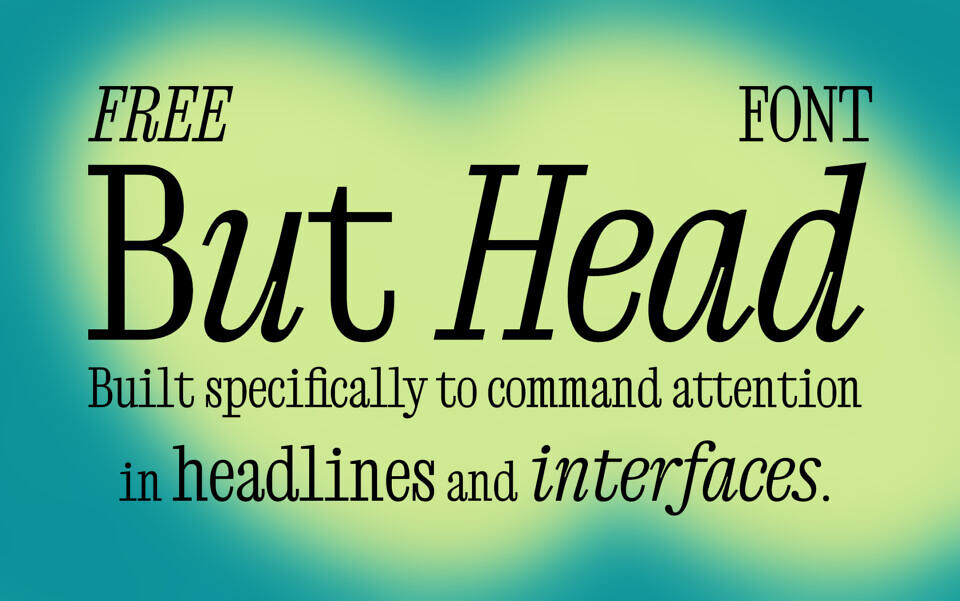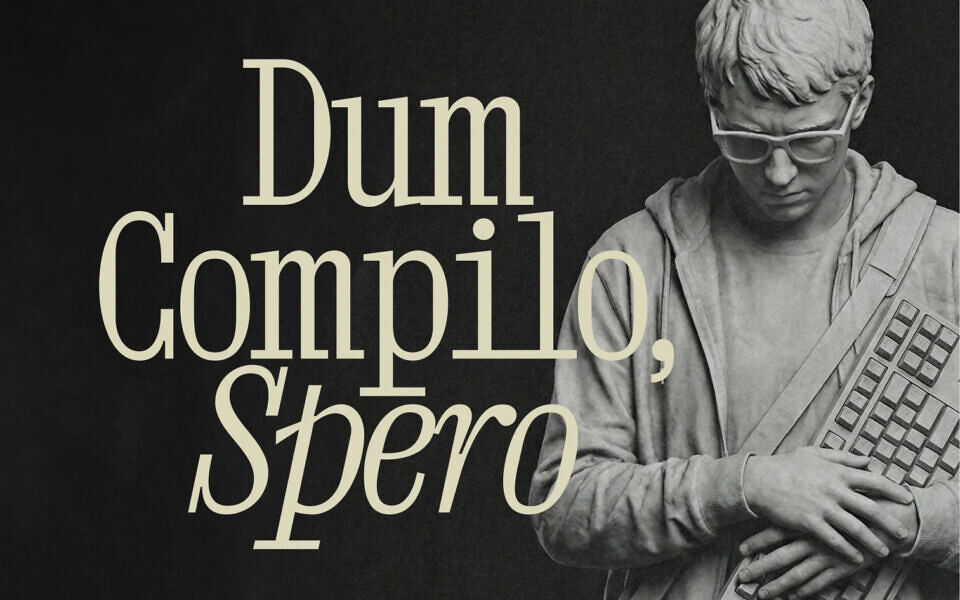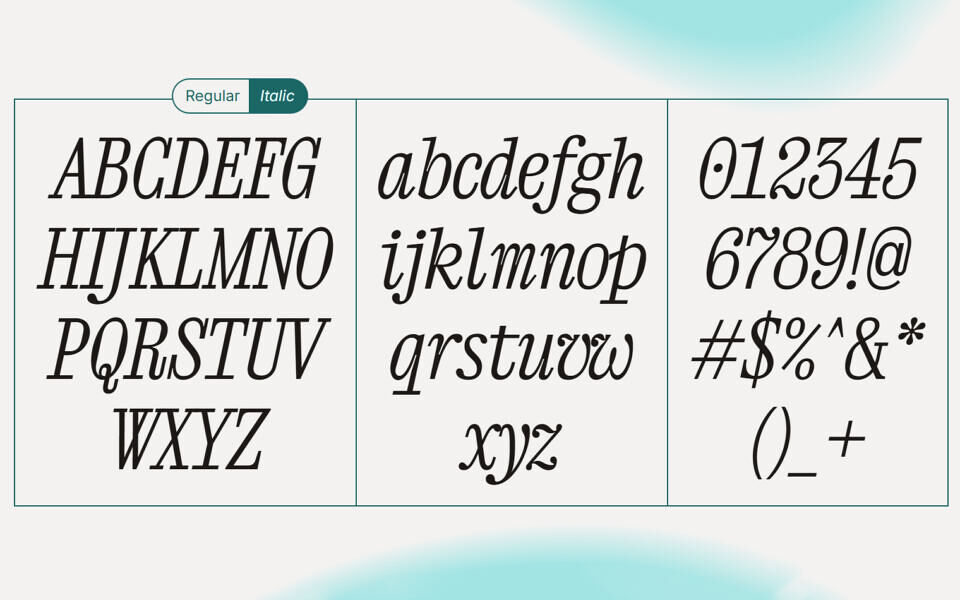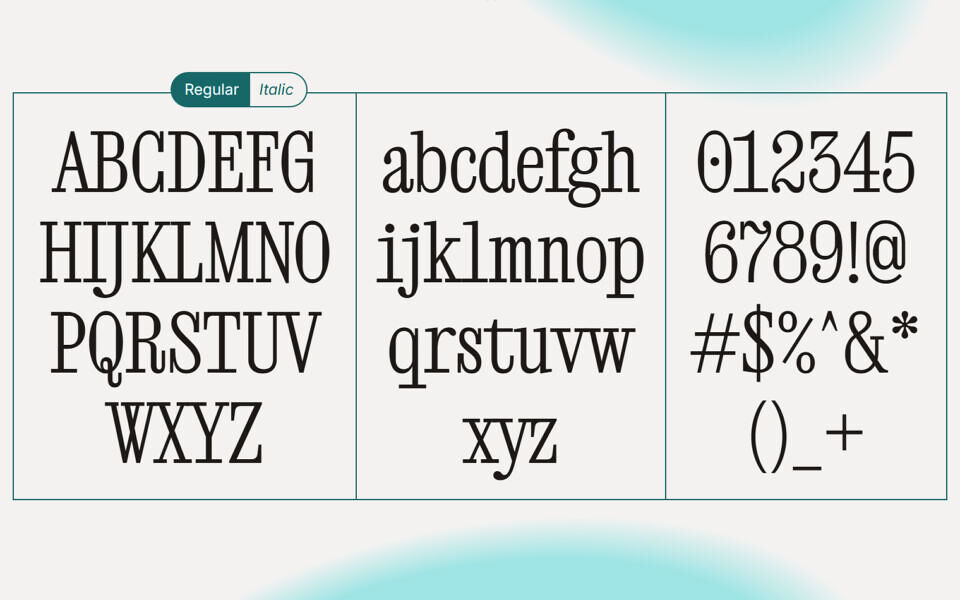
ButHead is a striking serif display typeface that blends technical accuracy with editorial style. Designed to capture attention in headlines and digital interfaces, it combines monospace roots with a magazine-inspired look. This font is available in two styles: Regular and Italic.
But Head combines the monospace foundation of Xanh Mono with Instrument’s refined editorial approach, blending precision and fluidity. Unlike many high-contrast typefaces that lose clarity at small sizes, ButHead’s strengthened horizontal strokes ensure readability without needing to increase size. This balance creates a harmonious design that works well on screens.
The true italic variant (not just slanted) provides authentic emphasis and hierarchy, essential for interface typography where every detail matters. While ButHead maintains a modern and contemporary look, the font also exudes luxury and elegance.